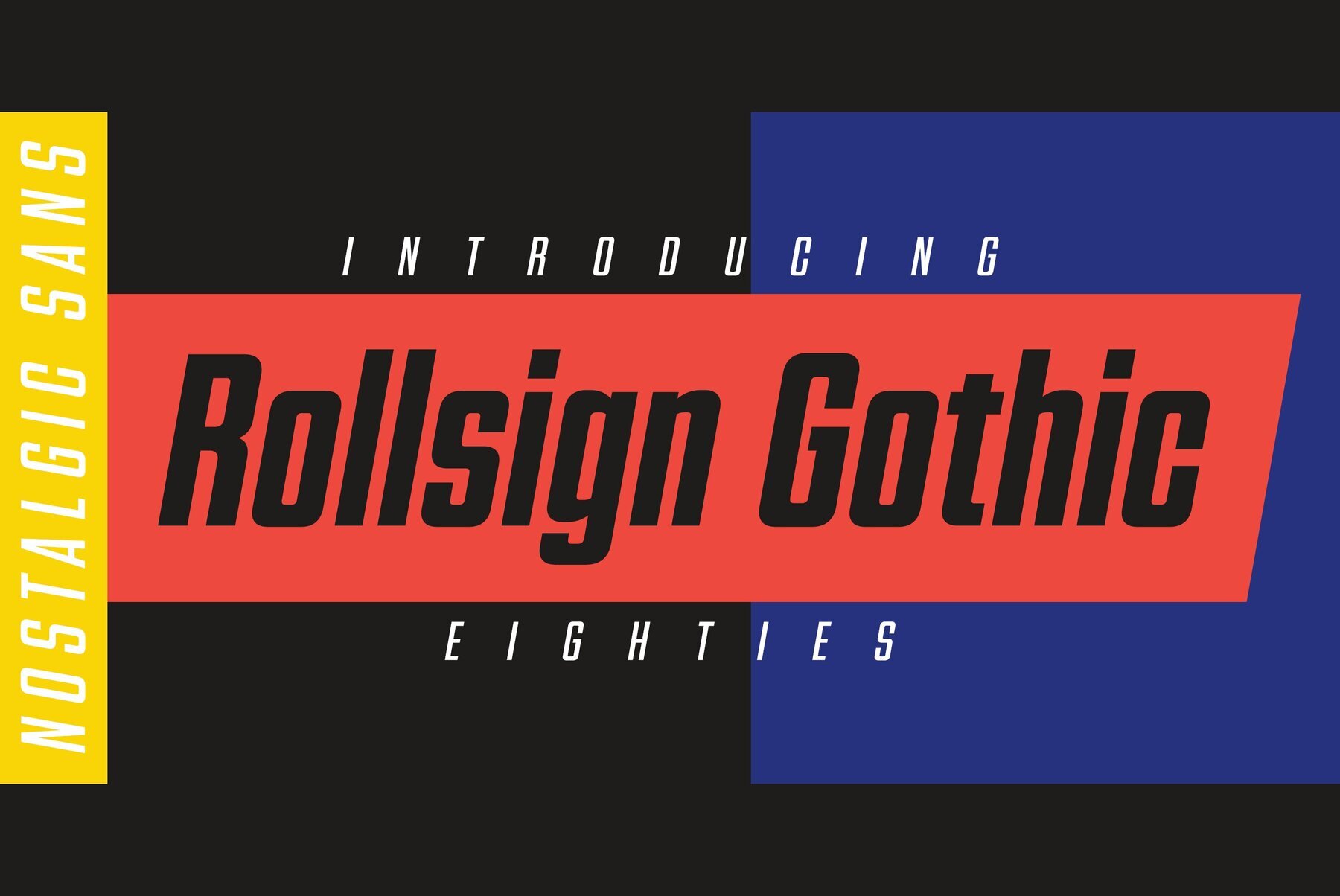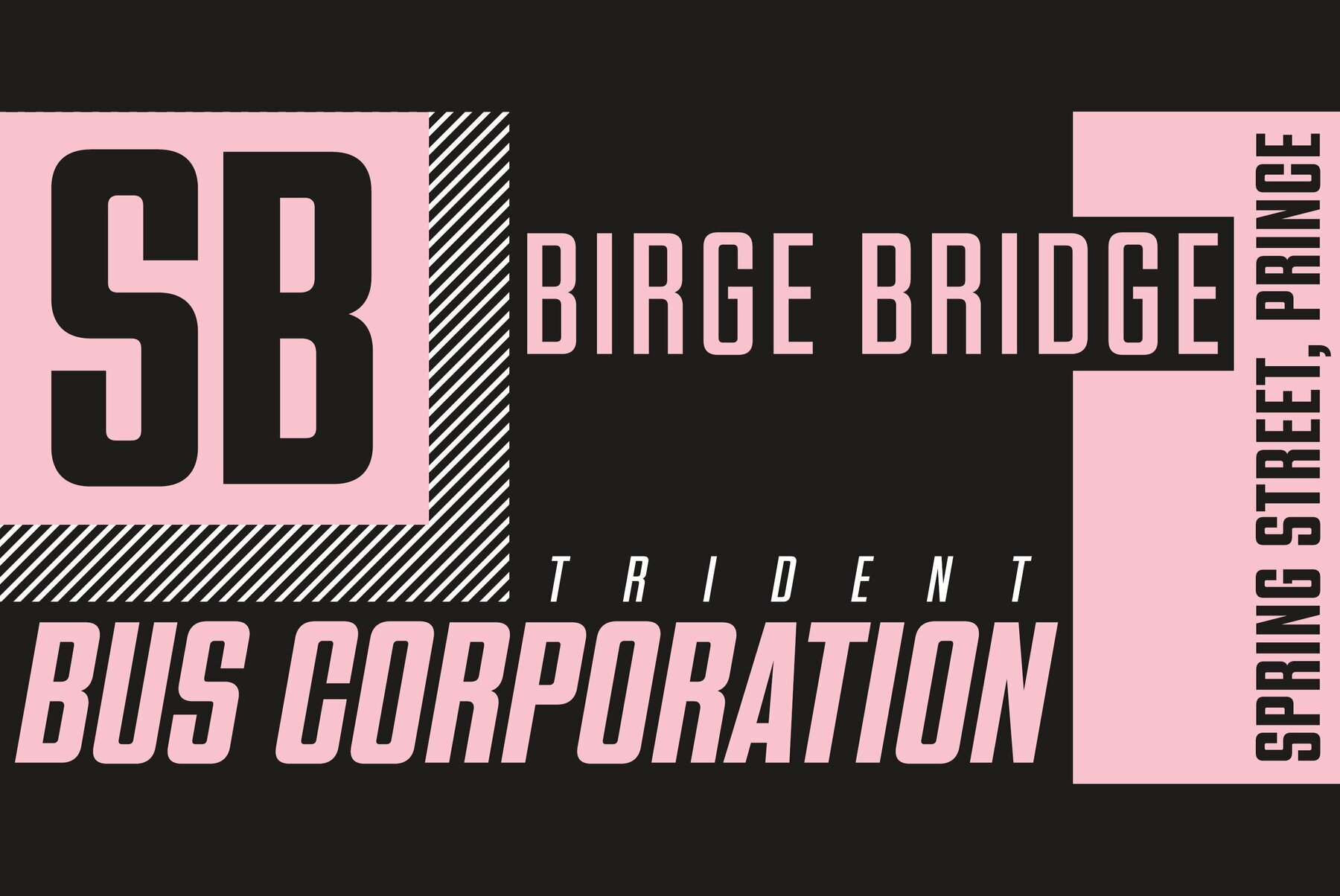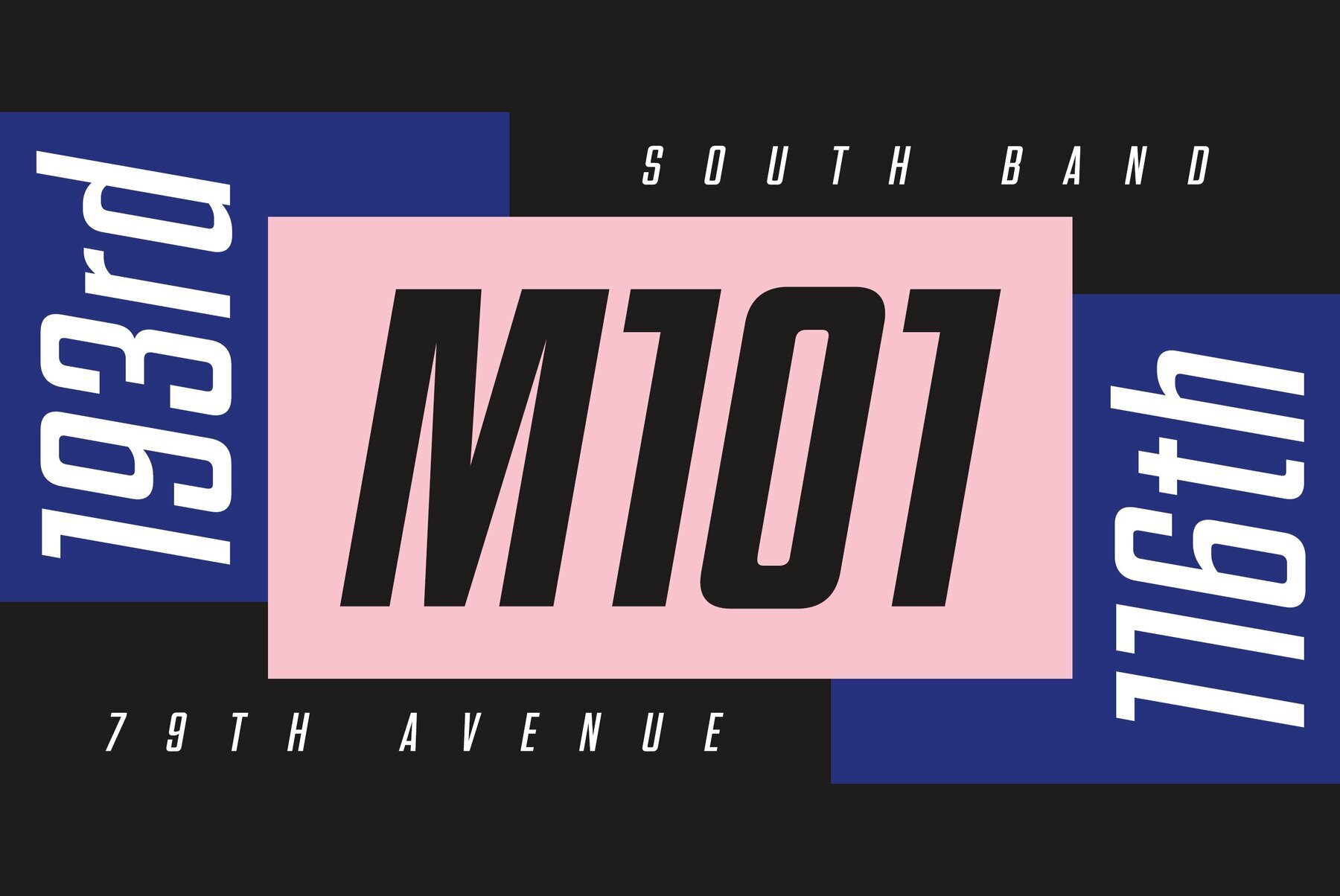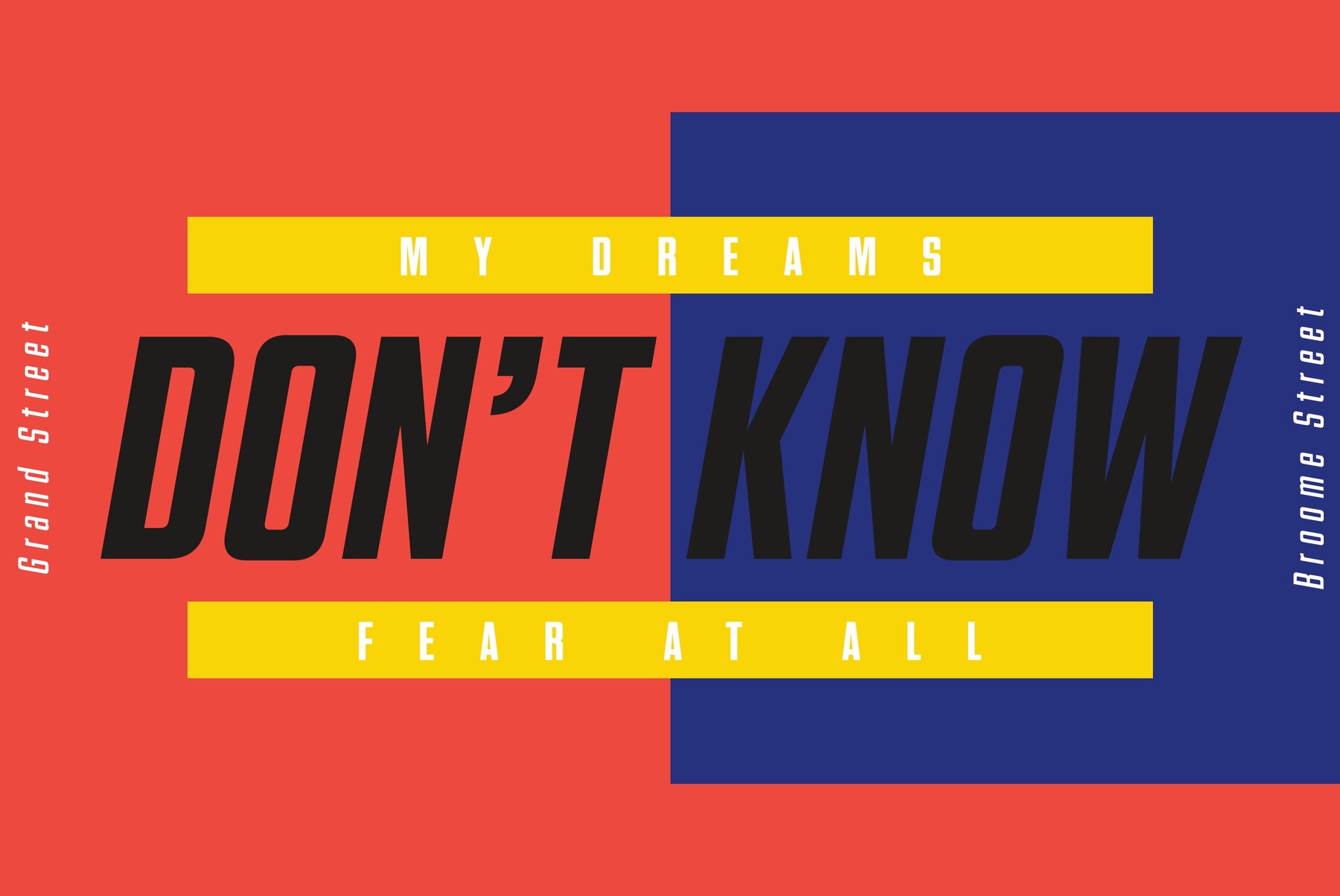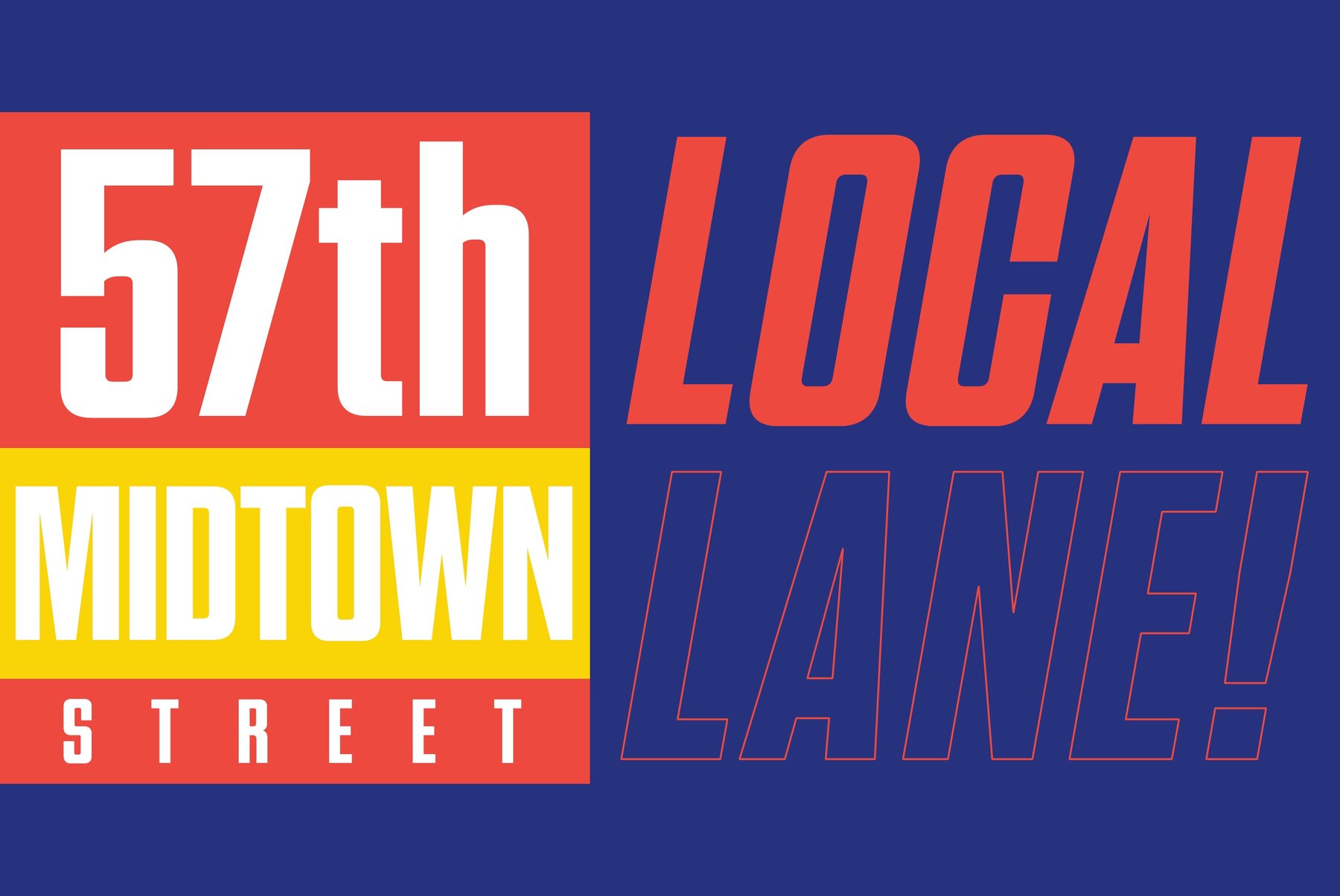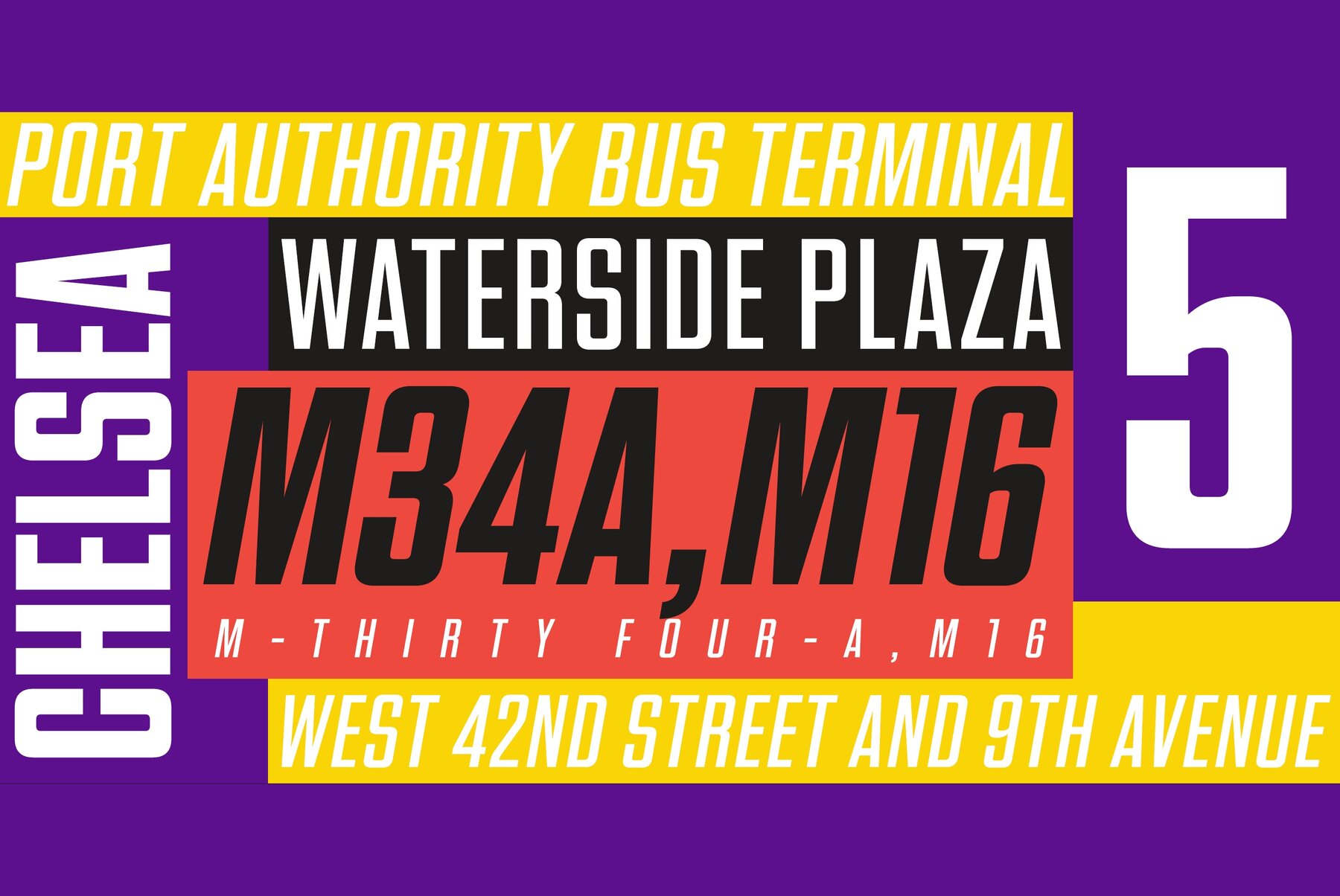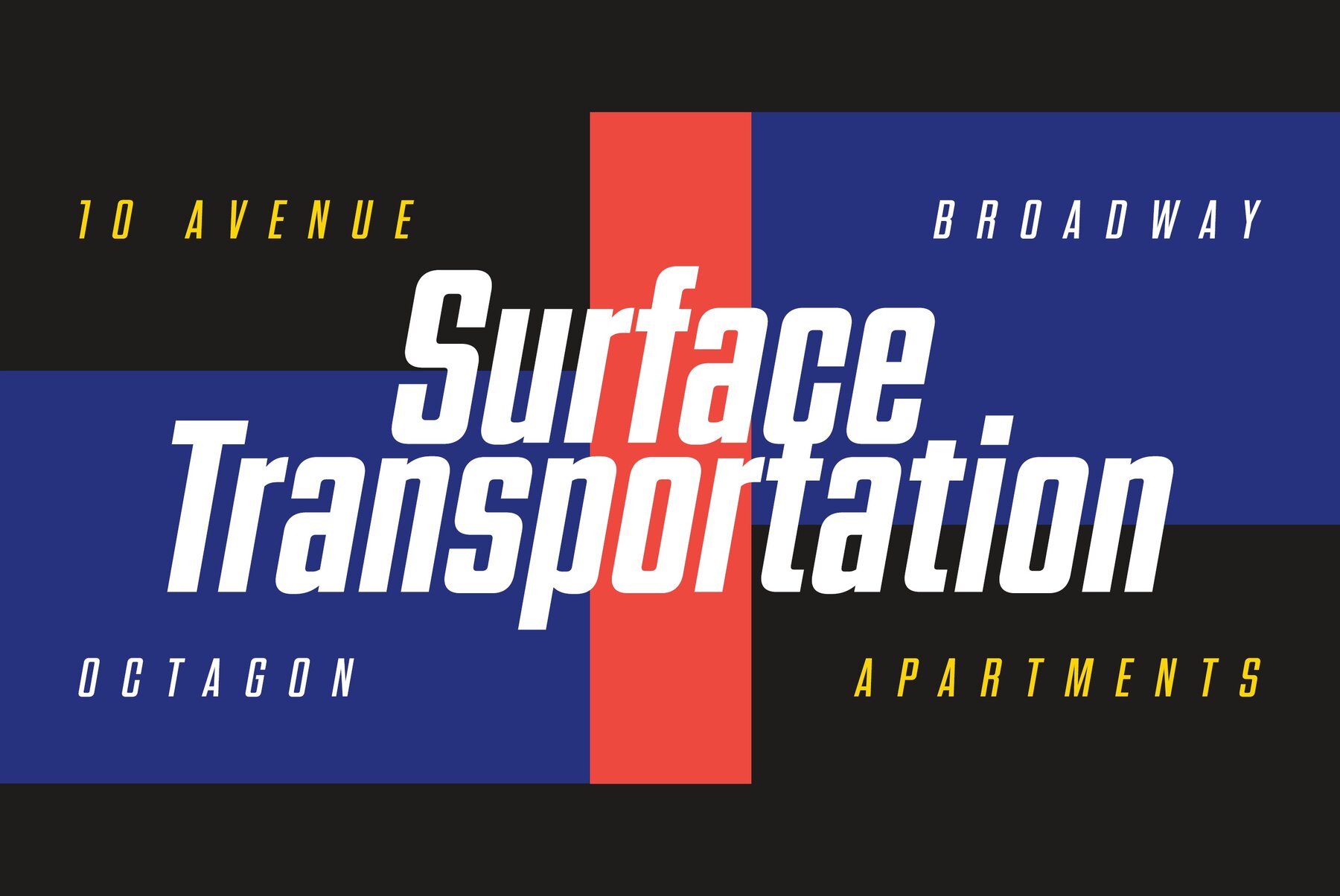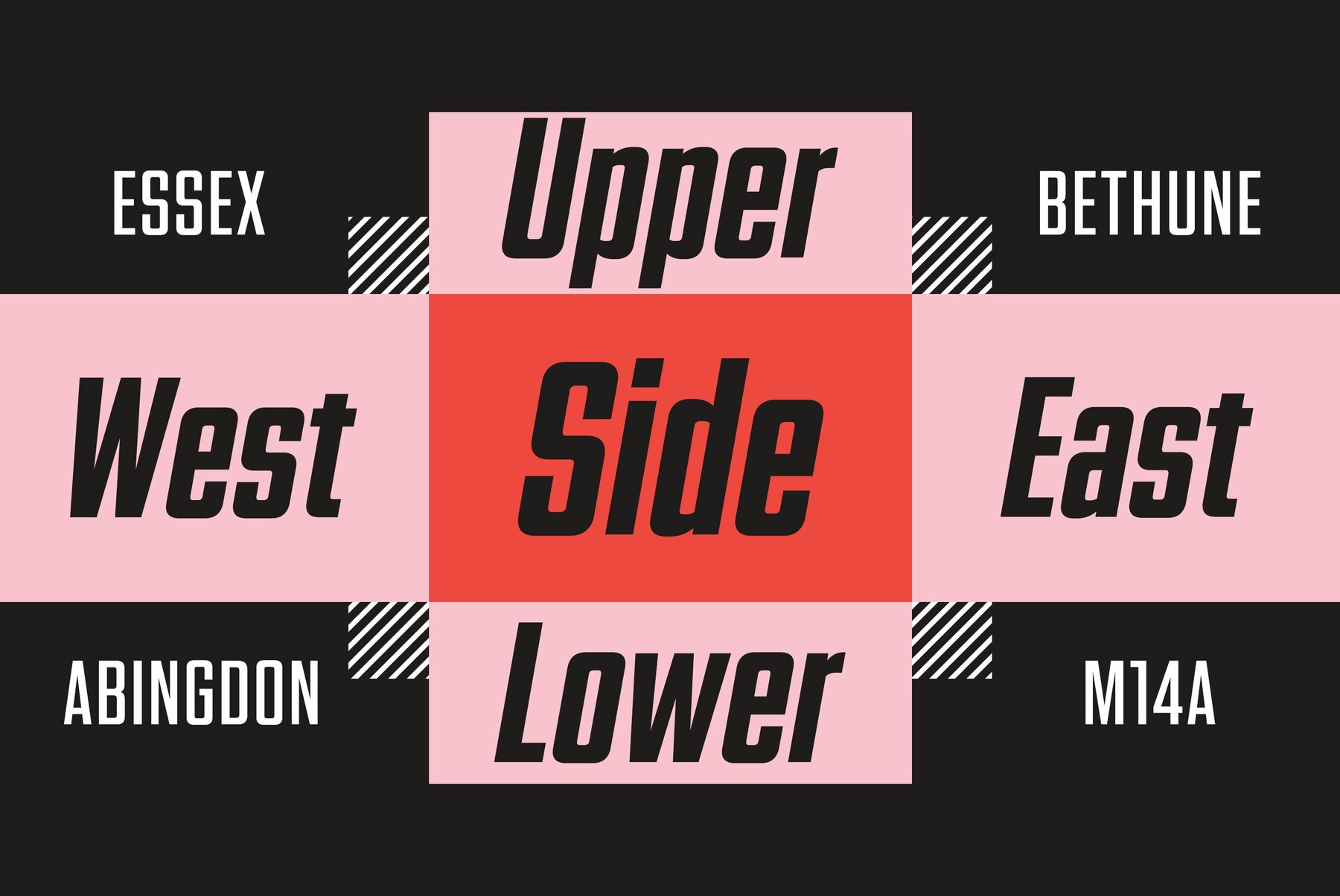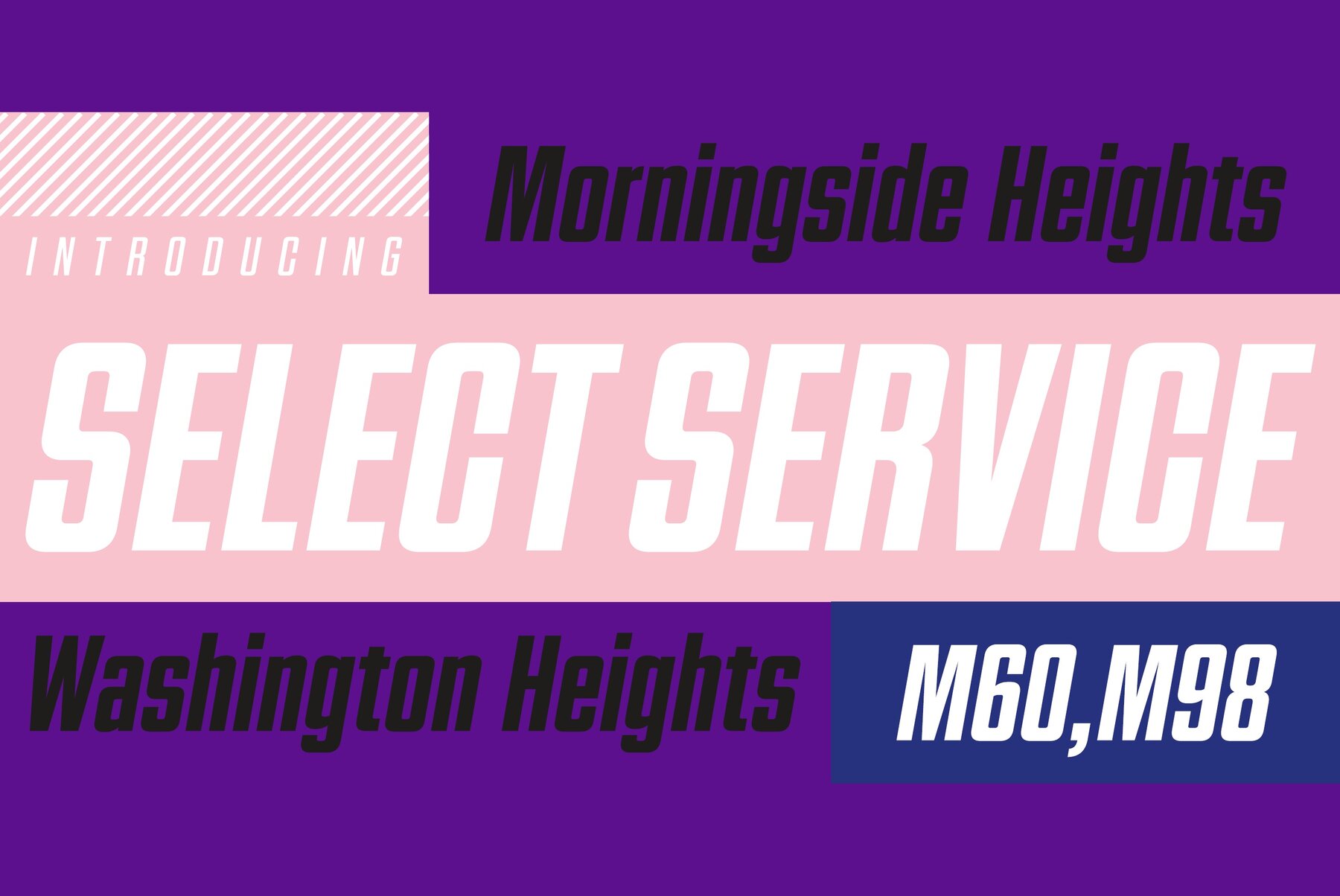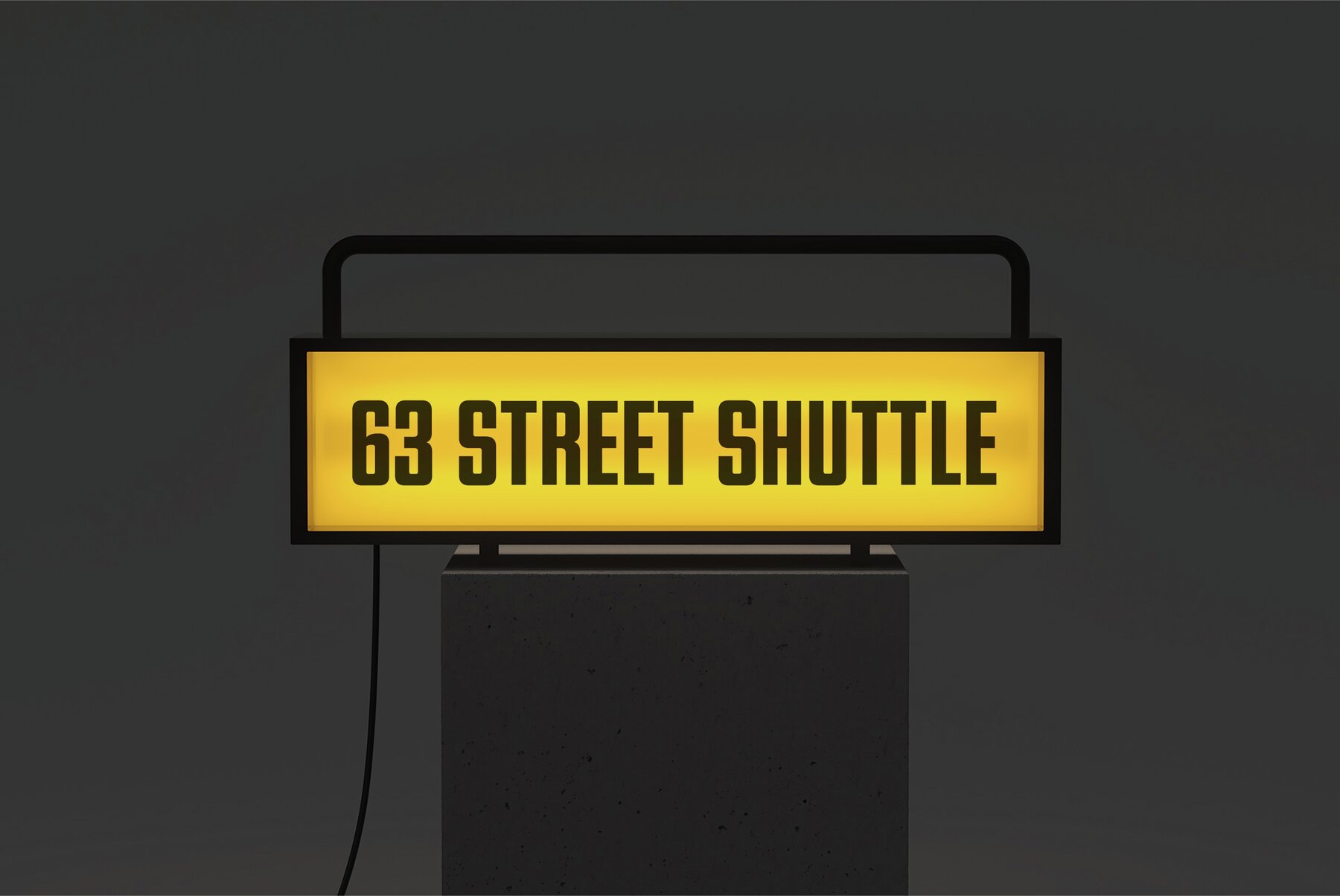
Rollsign Gothic Font
The essence of the Rollsign Typeface lies in its inspiration drawn from hand-drawn signs historically found on buses and trains. This typeface is a tribute to the era preceding digital technologies, encompassing a journey spanning a decade of design contemplation. Although initially challenging, the creative process refined over time, leading to a clear design direction that marries the old with the new. Rooted in the structural integrity of rollsigns, the typeface features a tall, narrow rectangular form. It encapsulates the utilitarian and artisan quality of the original signage with a focus on clarity and robustness—essential for maintaining legibility in dense text environments. The Rollsign Typeface transcends historical confines and transitions seamlessly into the digital age. Ideal for contemporary projects, it lends itself to varied applications such as posters, video titles, and product packaging. Its strong presence captures attention while efficiently conveying the distinctive identity of the brand it accompanies.Rollsign Typeface: Heritage Meets Modern Design